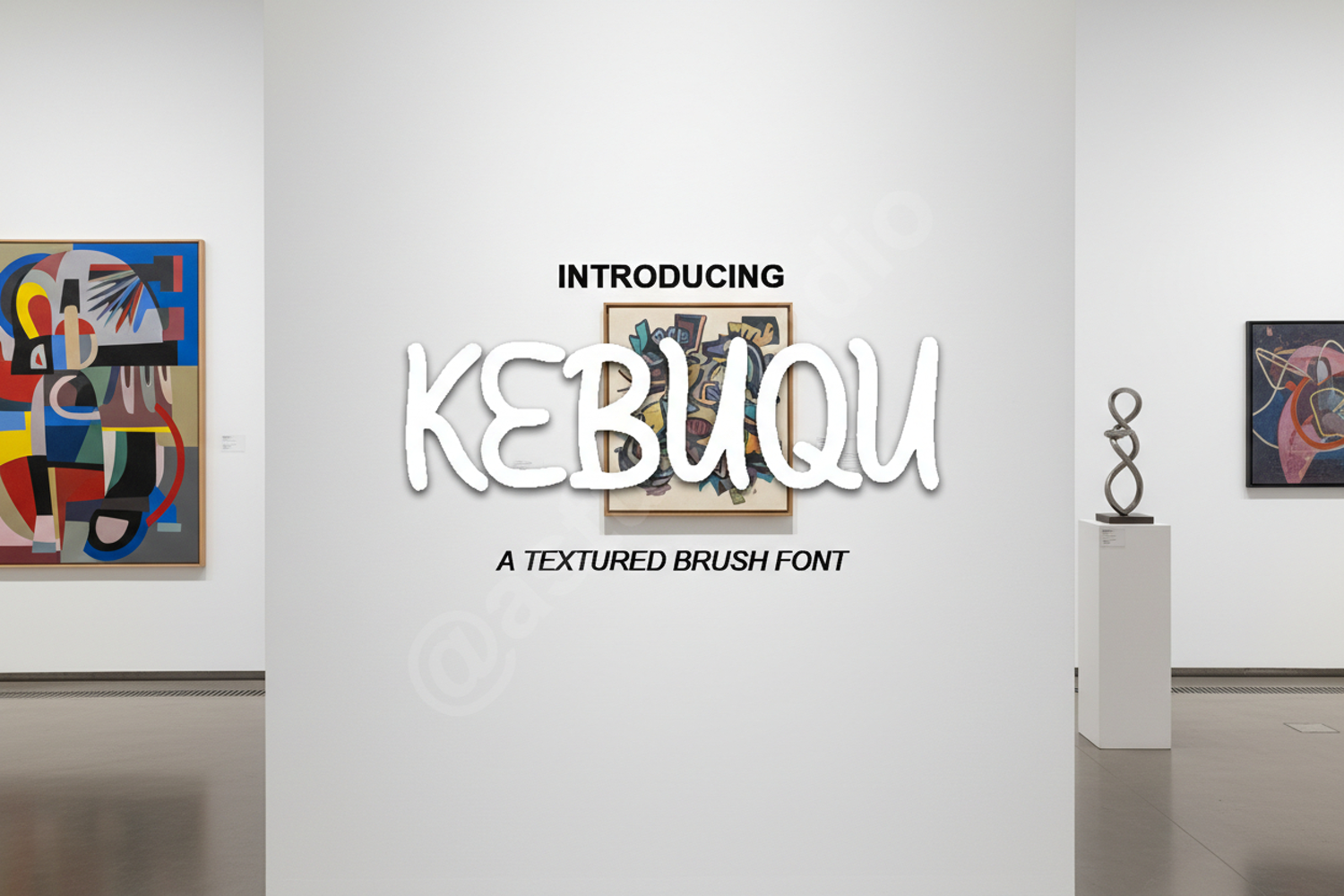
Kebuqu - A Modern Sophisticated Serif Font
Kebuqu
Kebuqu is a masterfully crafted serif font that balances classic elegance with modern minimalism. Designed for creators who seek a sophisticated touch, this typeface offers clean lines and unique character shapes that make any design stand out. Whether you are working on a high-end fashion brand or a minimalist editorial layout, Kebuqu provides the professional edge your project deserves.